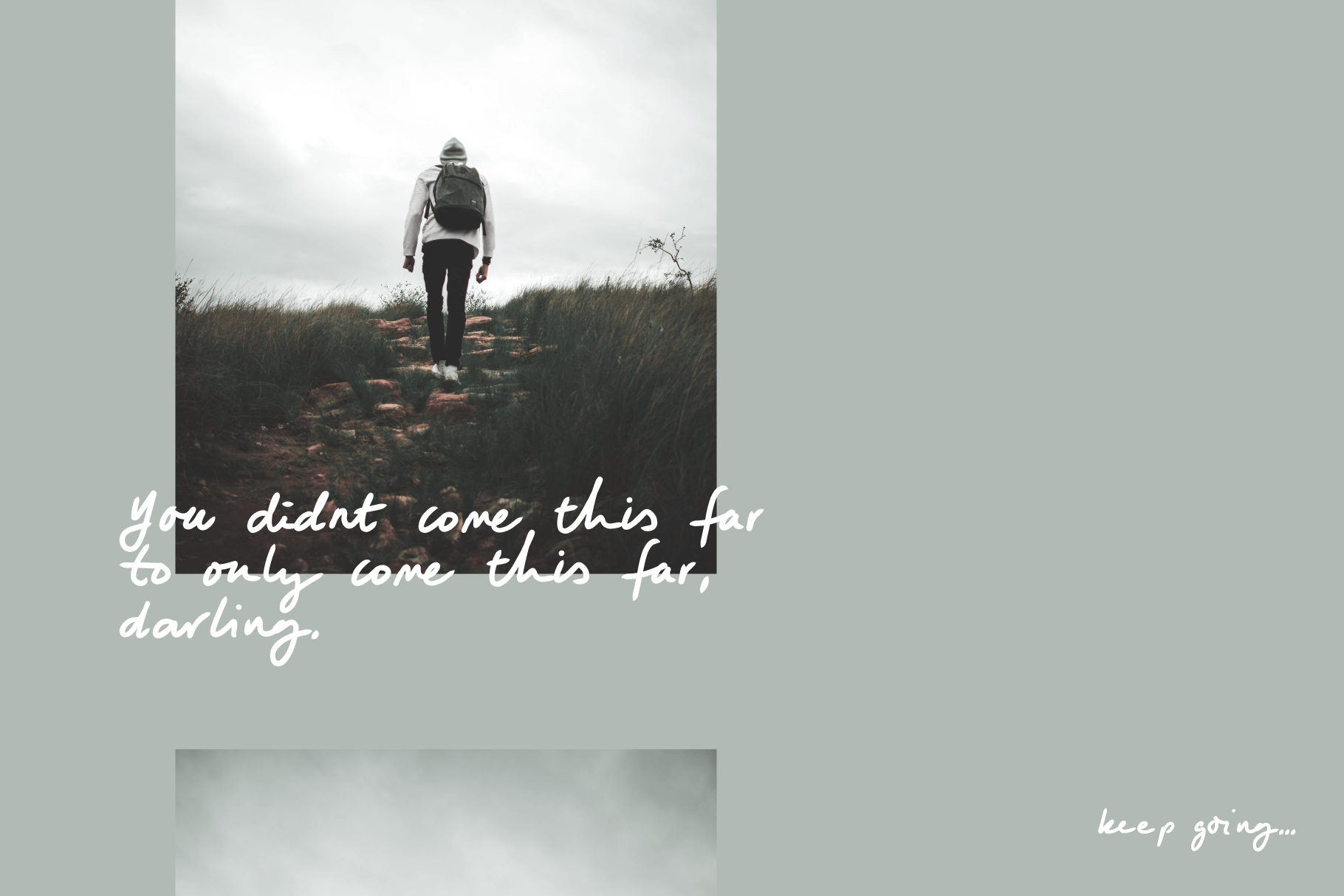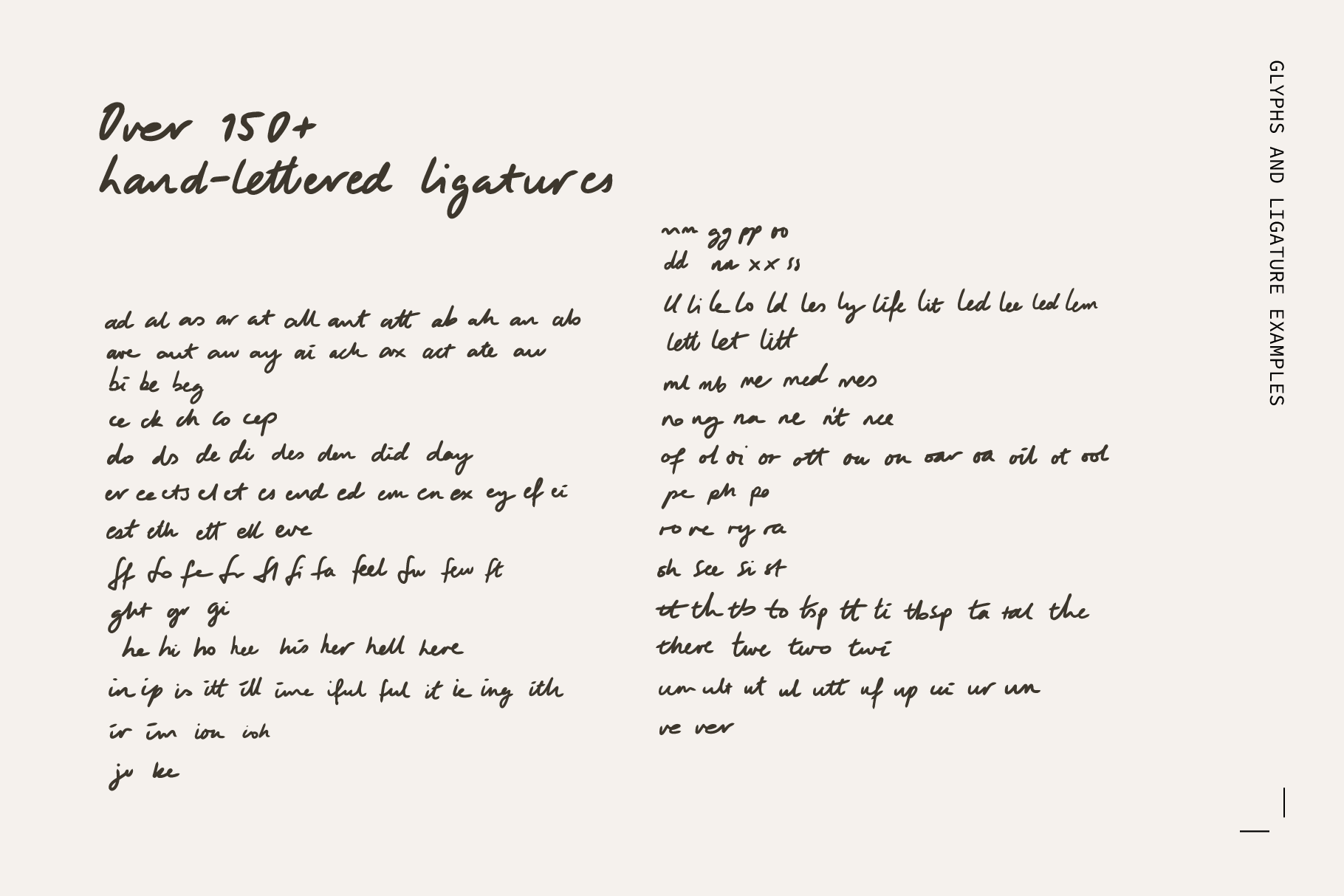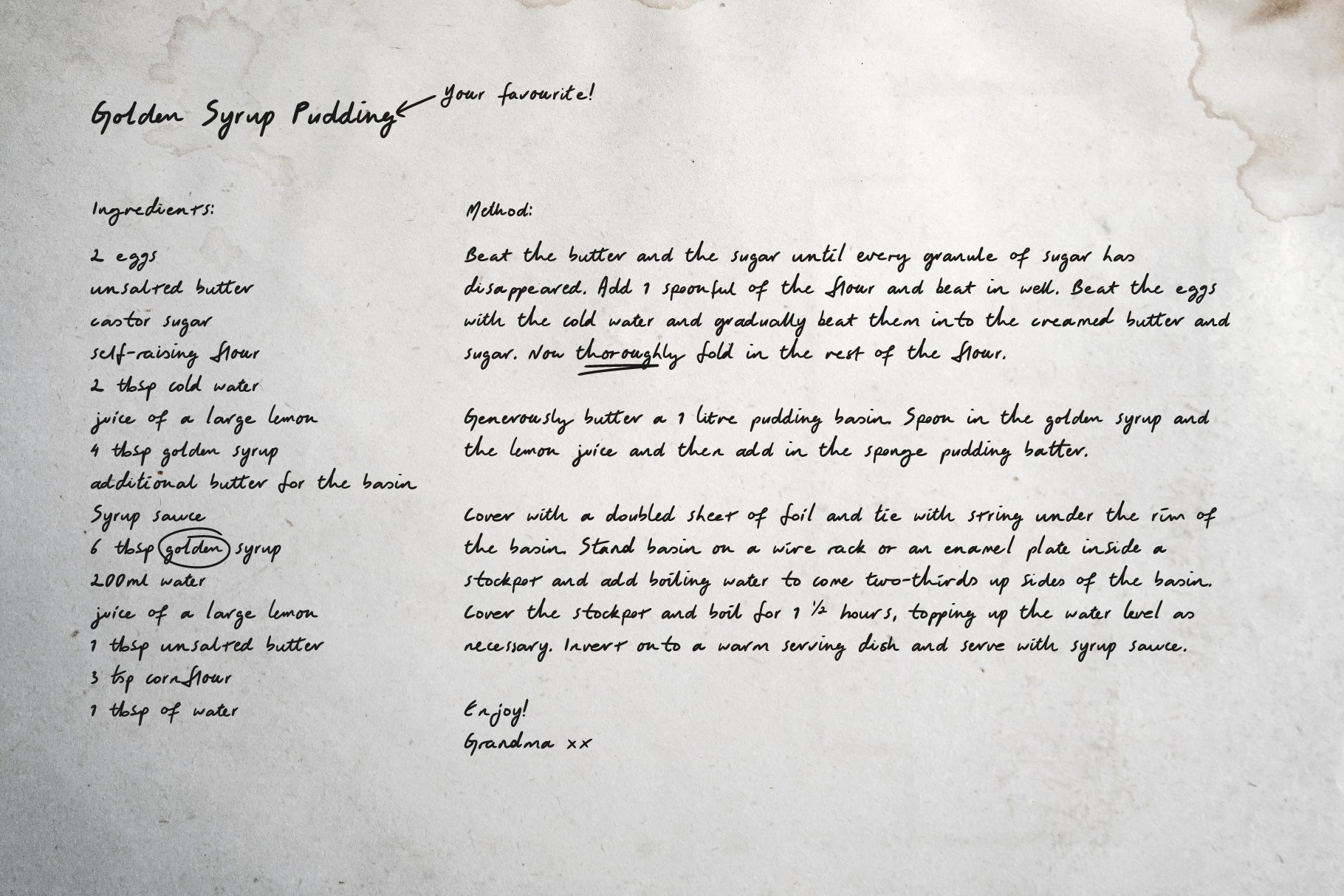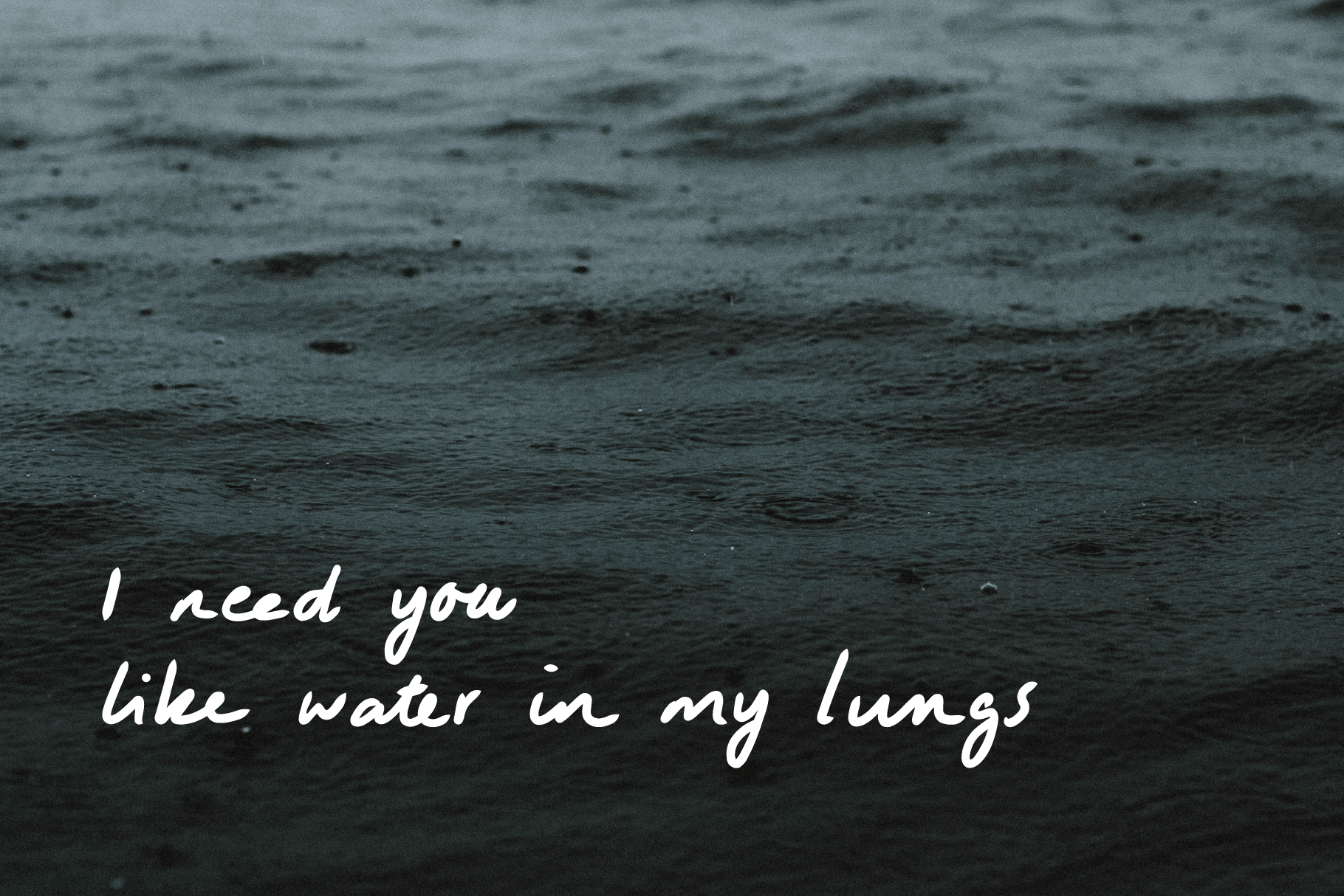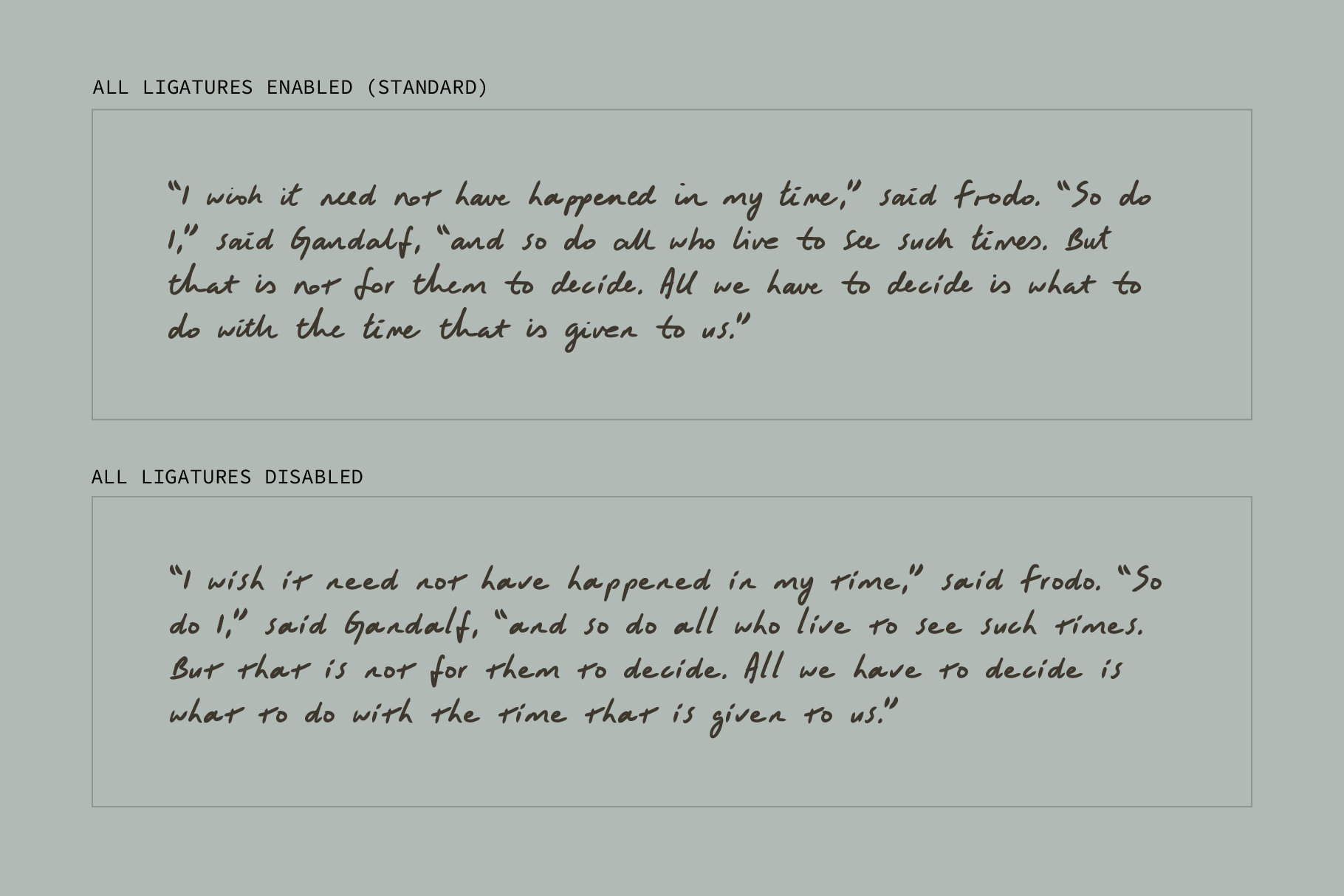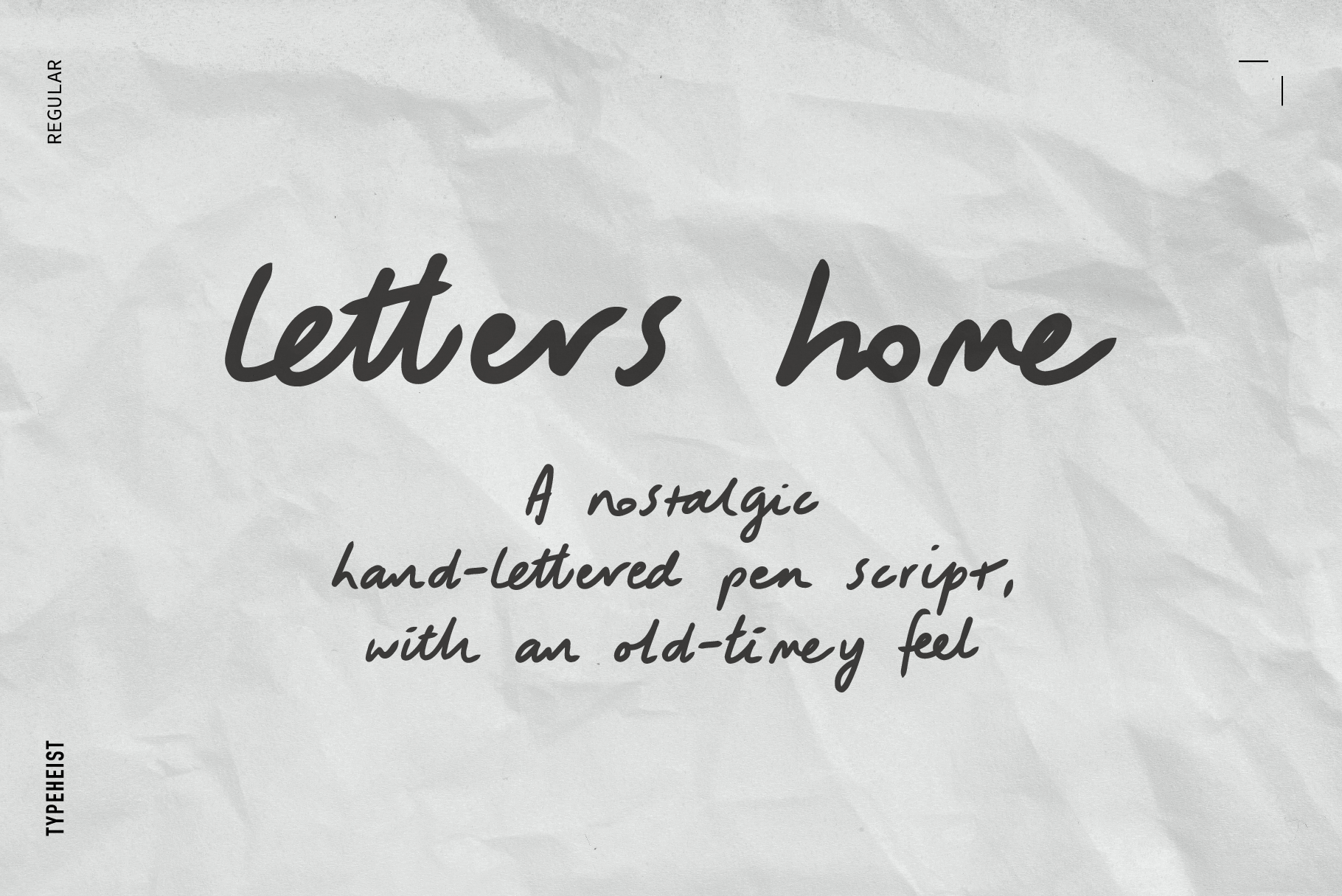
Letters Home
Like real handwriting, ‘Letters Home’ is realistic and charming, with an old-timey feel.
Over 150 handwritten ligatures transform your text into a beautiful script font, scribed with a thick pen. It’s warm and fuzzy, like grandma’s recipe or a love note home.
Letters Home is nostalgic hand-lettered pen script with a vintage charm. If you’ve ever opened up an old photo album or notebook and caught a glimpse of a handwritten verse from decades past; this is what Letter’s Home feels like.